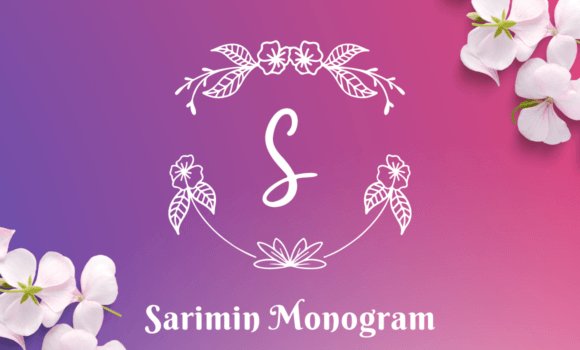
Sarimin Monogram Font – Free Download Introduction to Sarimin Monogram Font Sarimin Monogram is a beautiful decorative font, elegant & perfect for your special occasions, business designs, logos, branding, social media posts, and wedding cards. 📸 Preview Gallery 5 images